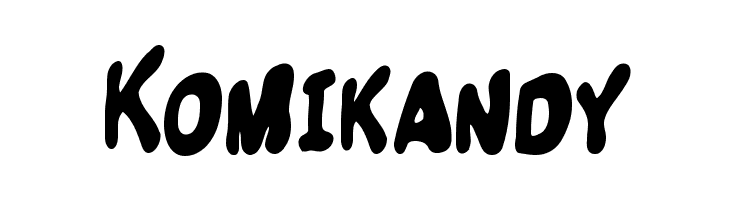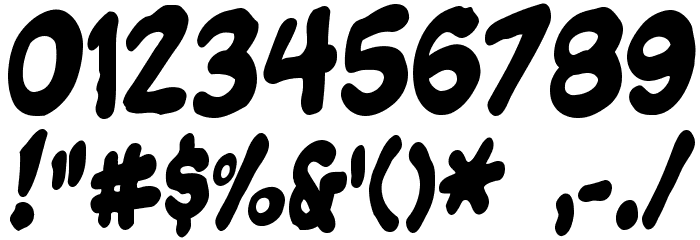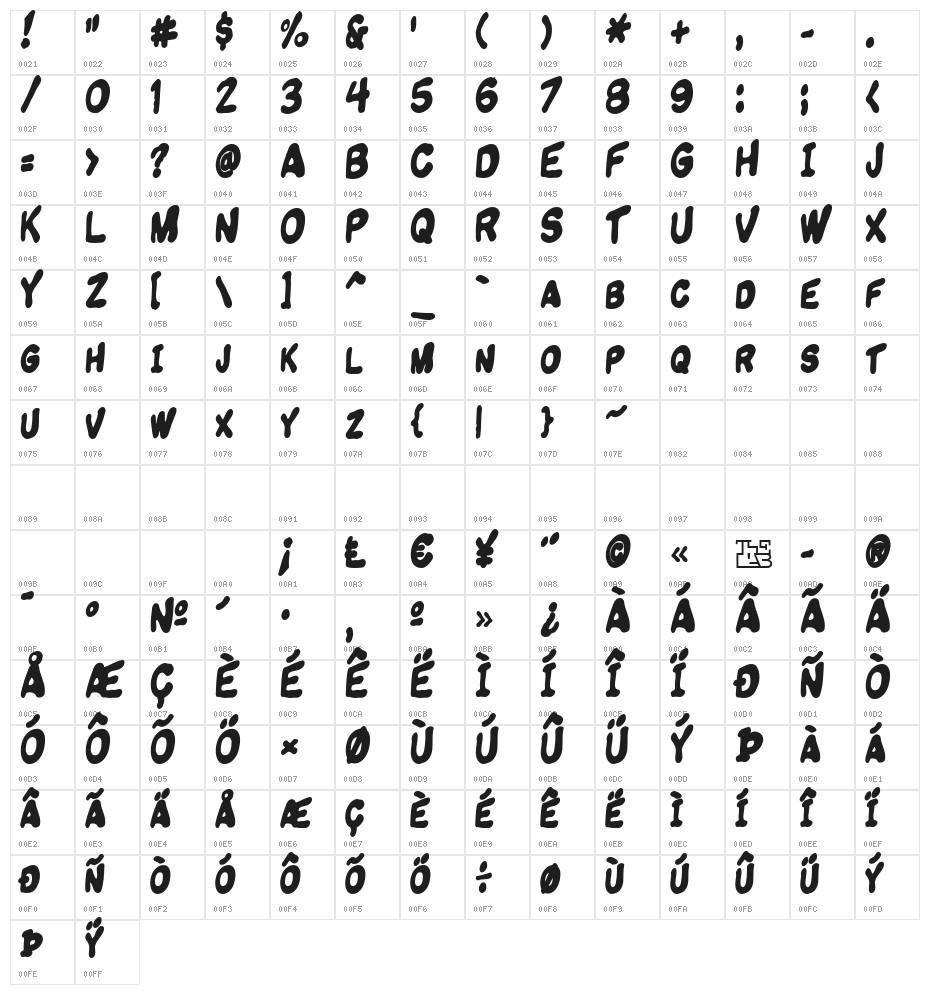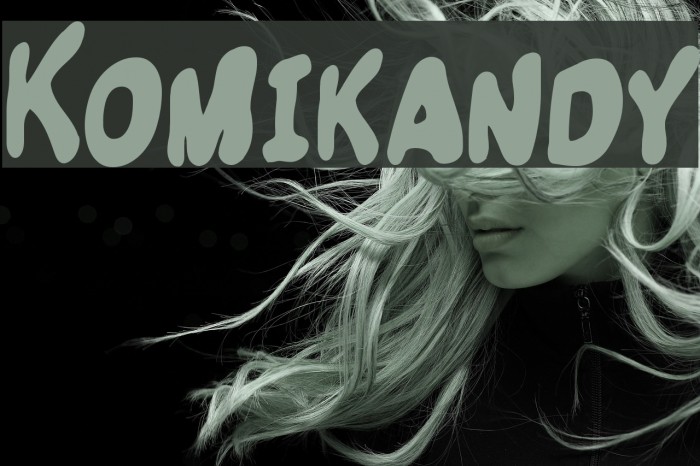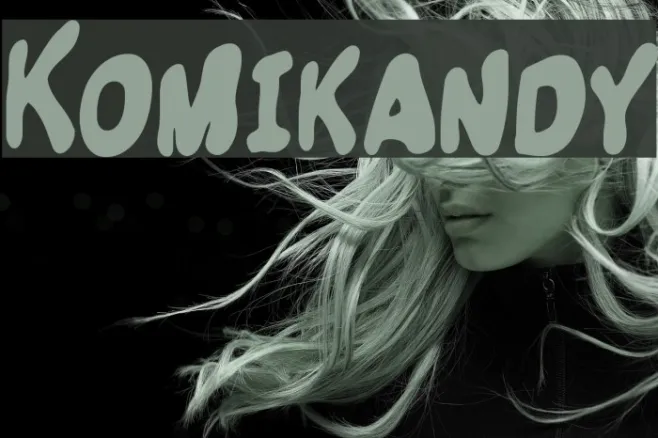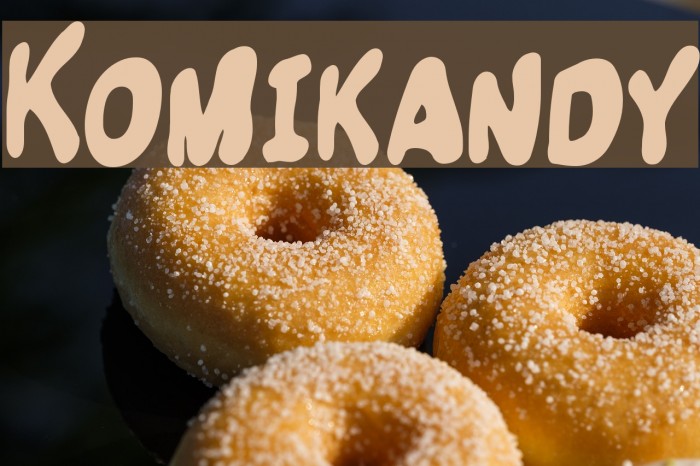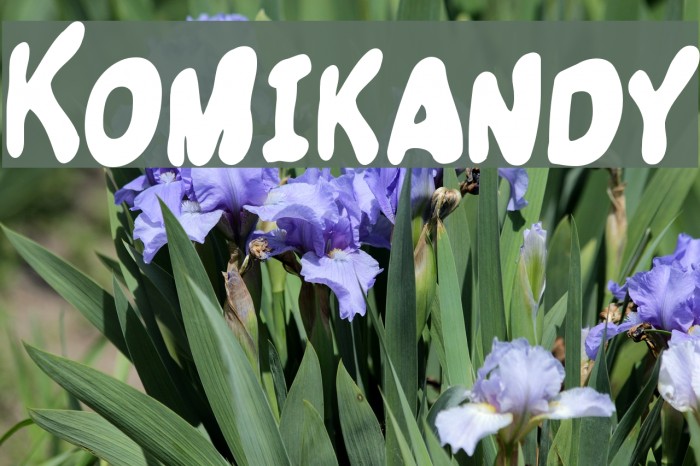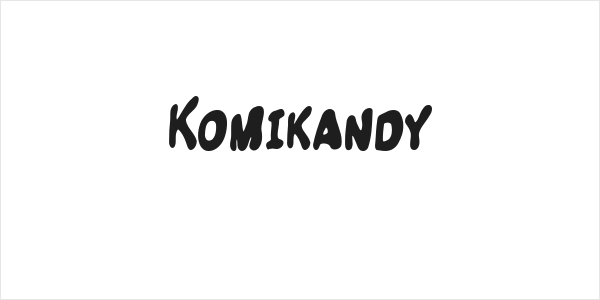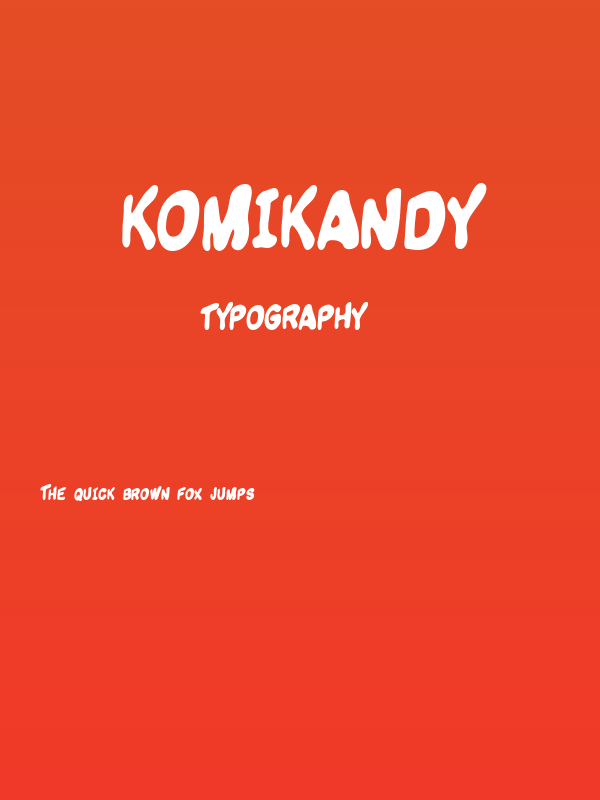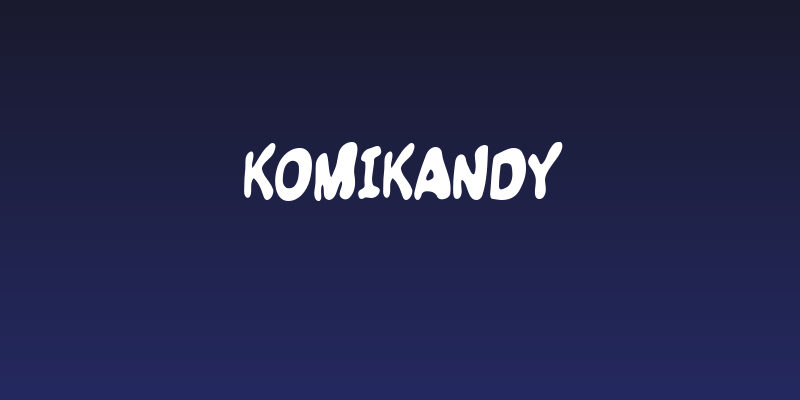
Komikandy Font
Komikandy Description
This playful and bold font features a cartoonish, hand-drawn style that is both whimsical and eye-catching. The characters are rounded and slightly irregular, giving them a friendly and approachable appearance. The bold strokes and exaggerated curves make it ideal for capturing attention and conveying a sense of fun and creativity. The font maintains a consistent weight throughout, ensuring readability while adding a dynamic flair to any design. Its unique style is perfect for projects that require a touch of humor and personality.
| Overall Style | Playful, Cartoonish, Whimsical |
| Proposed Projects | Ideal for comic books, children's books, playful branding, posters, and social media graphics. |